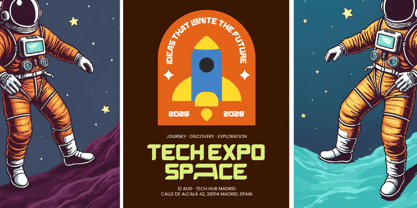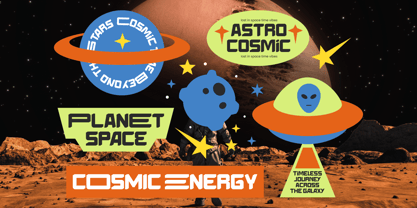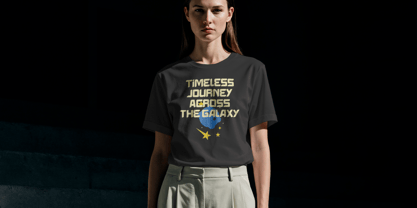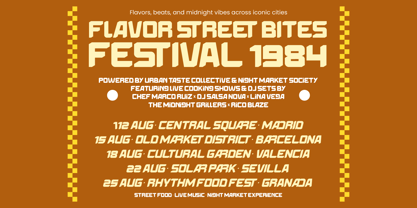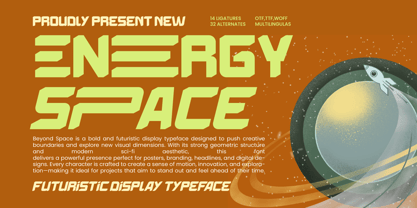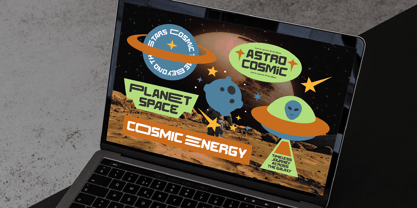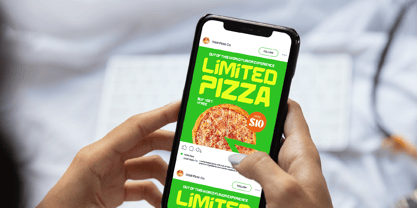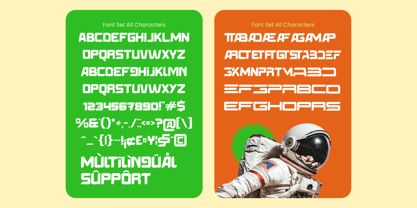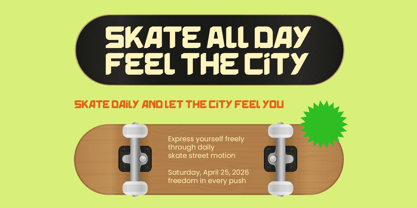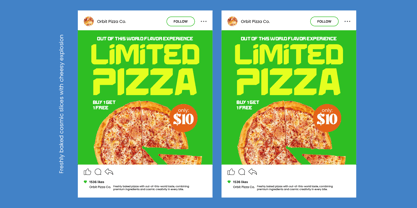
Energy Space
by Timelesstype Studio
The Energy Space Font Family was designed by Heru Utama Putra and published by Timelesstype Studio. Energy Space contains 2 styles and family package options. More about this family
Energy Space – Futuristic Display Typeface Energy Space is a bold and futuristic display typeface designed to push creative boundaries and explore new visual dimensions. Inspired by sci-fi aesthetics and space exploration, this font features strong geometric shapes, dynamic angles, and a modern technological feel that instantly captures attention. With its powerful presence and cutting-edge style, Energy Space is perfect for projects that aim to stand out and feel ahead of their time. Whether you're designing posters, branding, game titles, movie graphics, tech products, or digital interfaces, this typeface delivers a striking and memorable impact. Every character is carefully crafted to evoke a sense of motion, innovation, and exploration, making it ideal for futuristic and high-energy visual concepts. The inclusion of ligatures and stylistic alternates provides additional flexibility, allowing designers to create unique and customized typographic compositions.